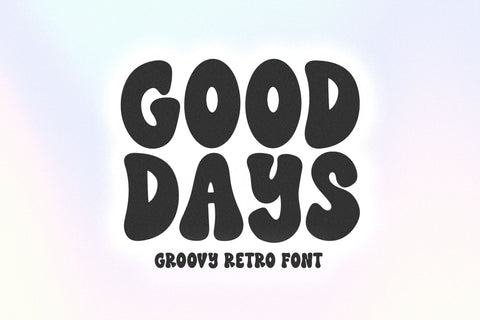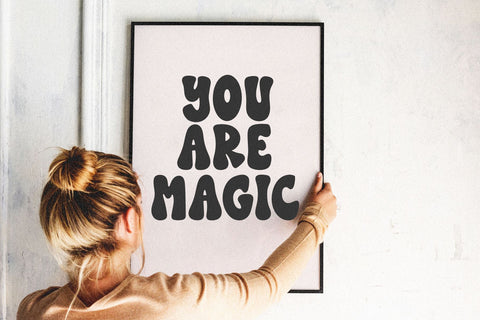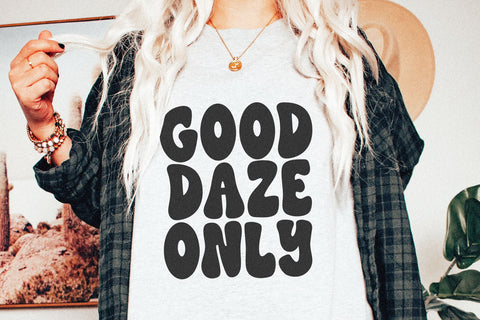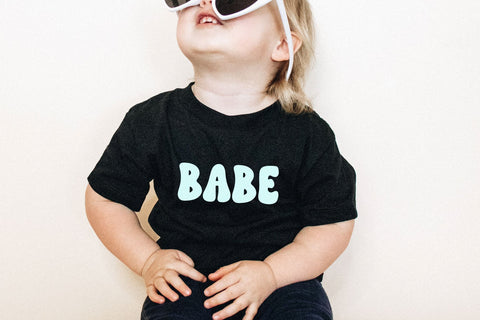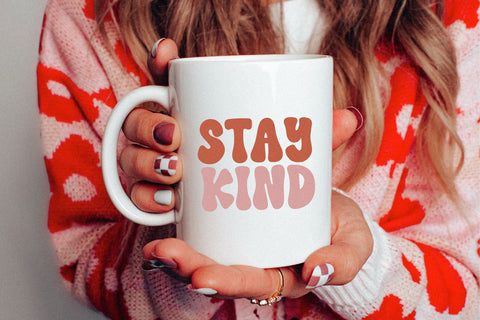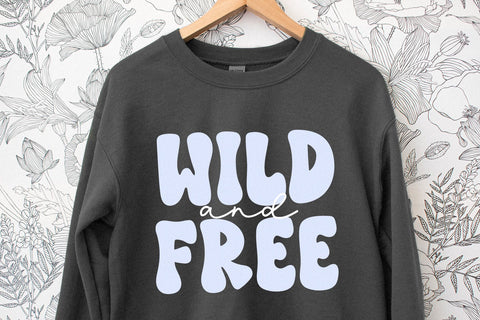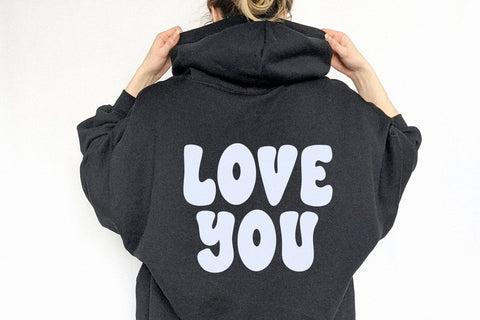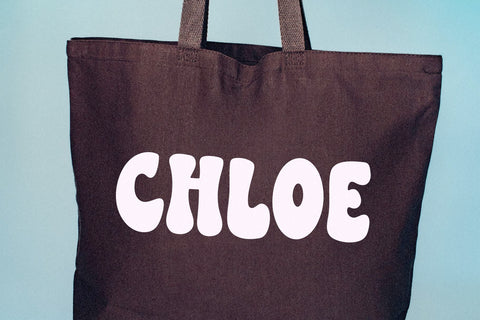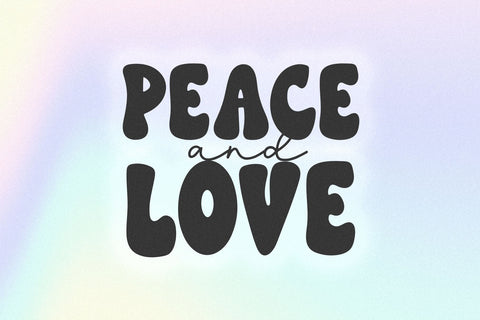
Good Days - Groovy Retro Font
Good Days is a fun retro style font!
This font is perfect for all of your cricut projects, stickers, shirts, procreate designs, social media and more!